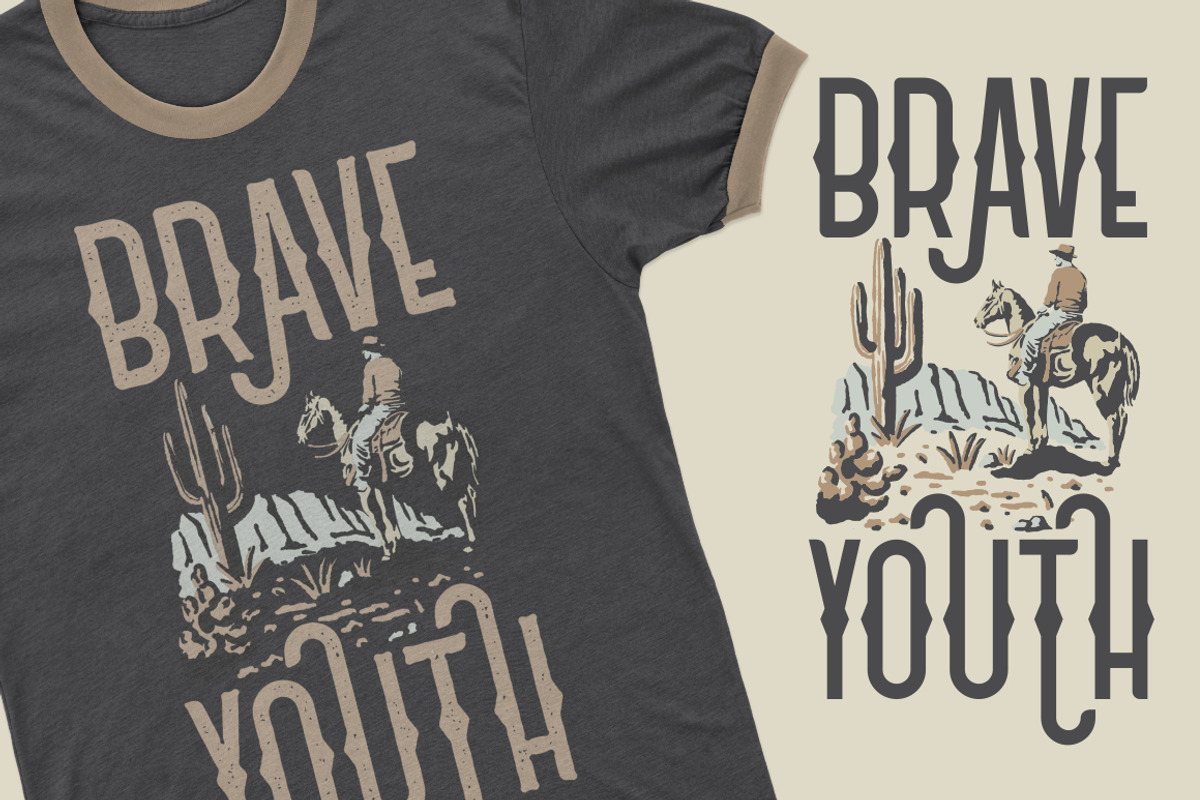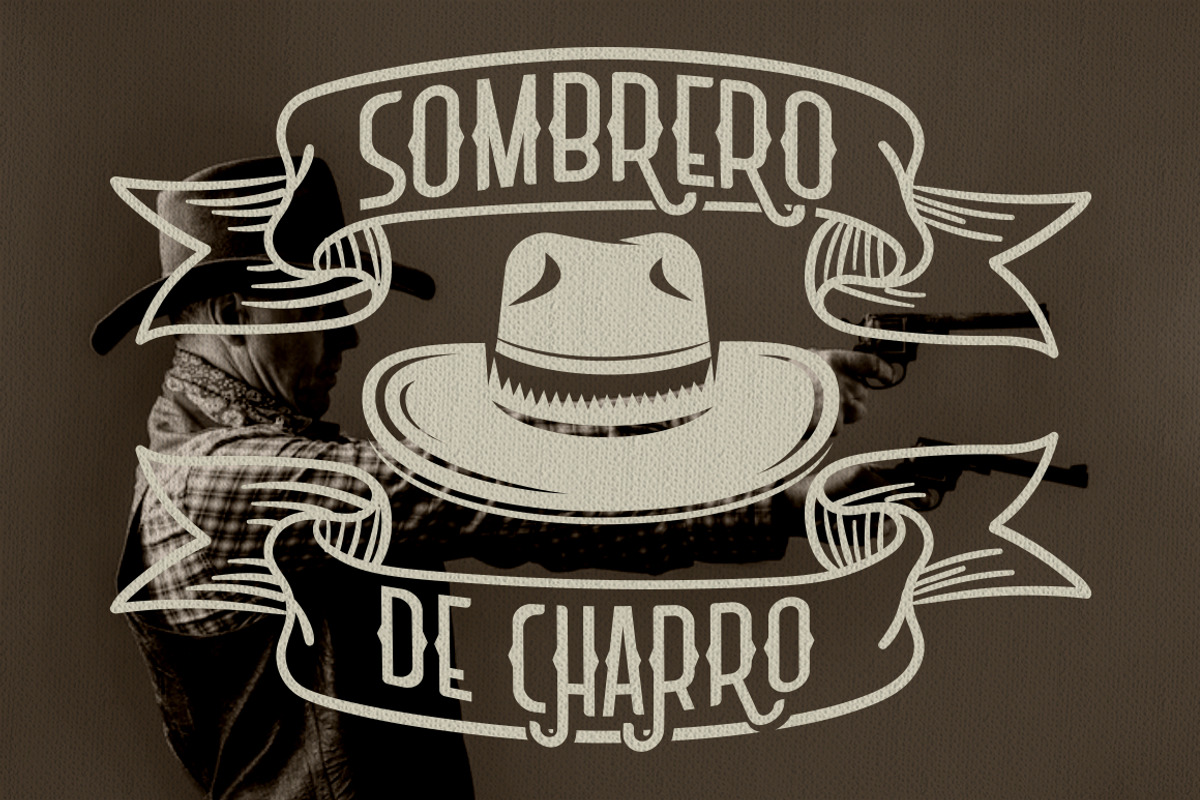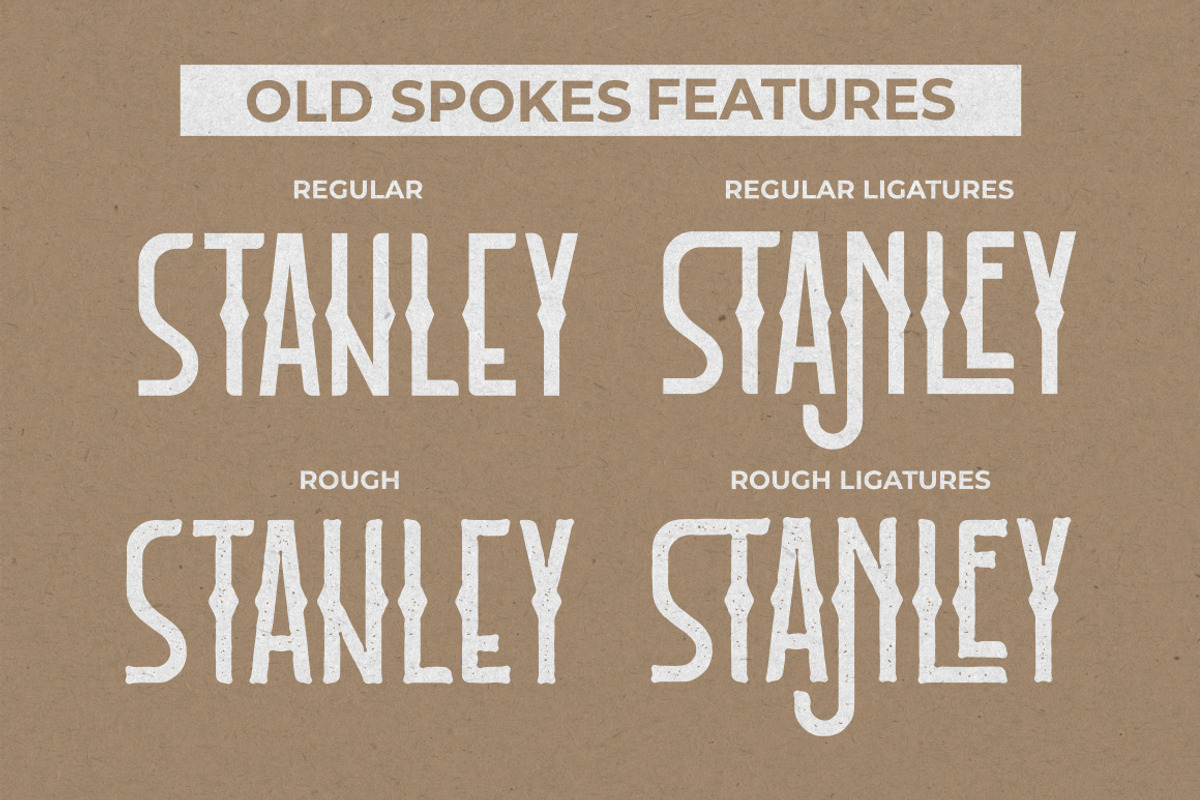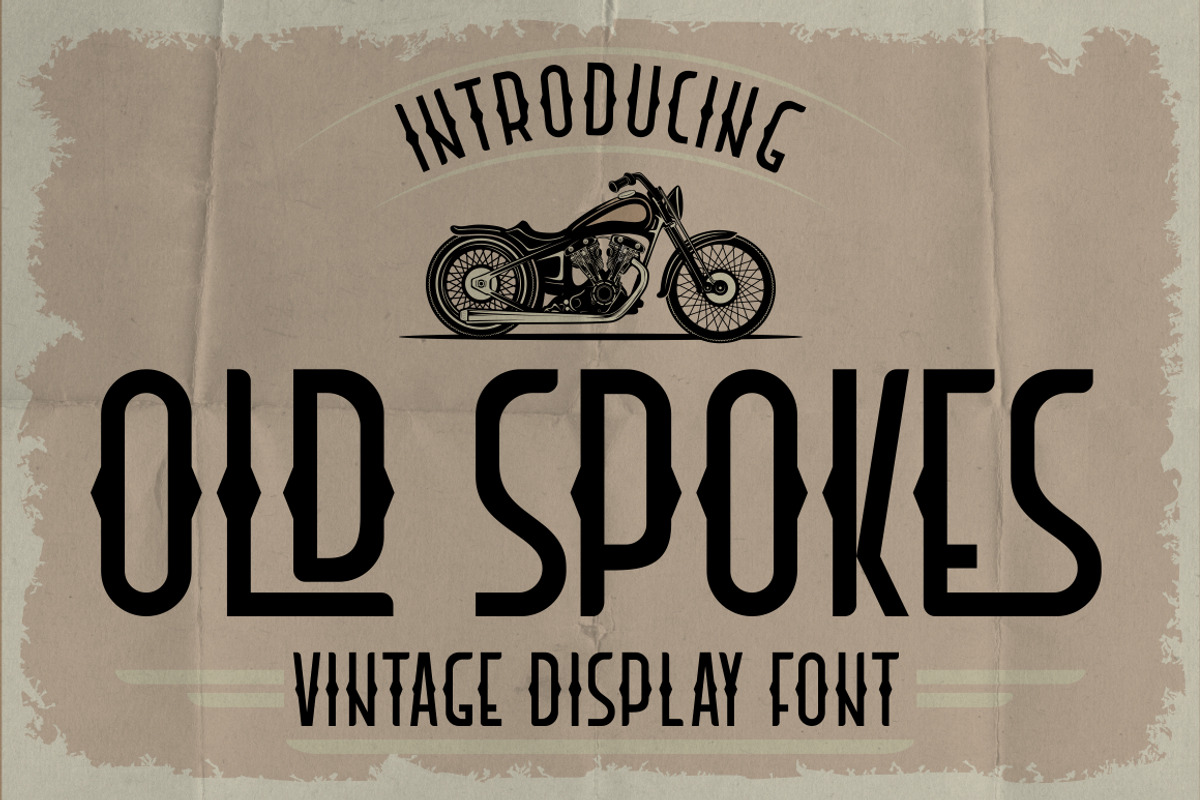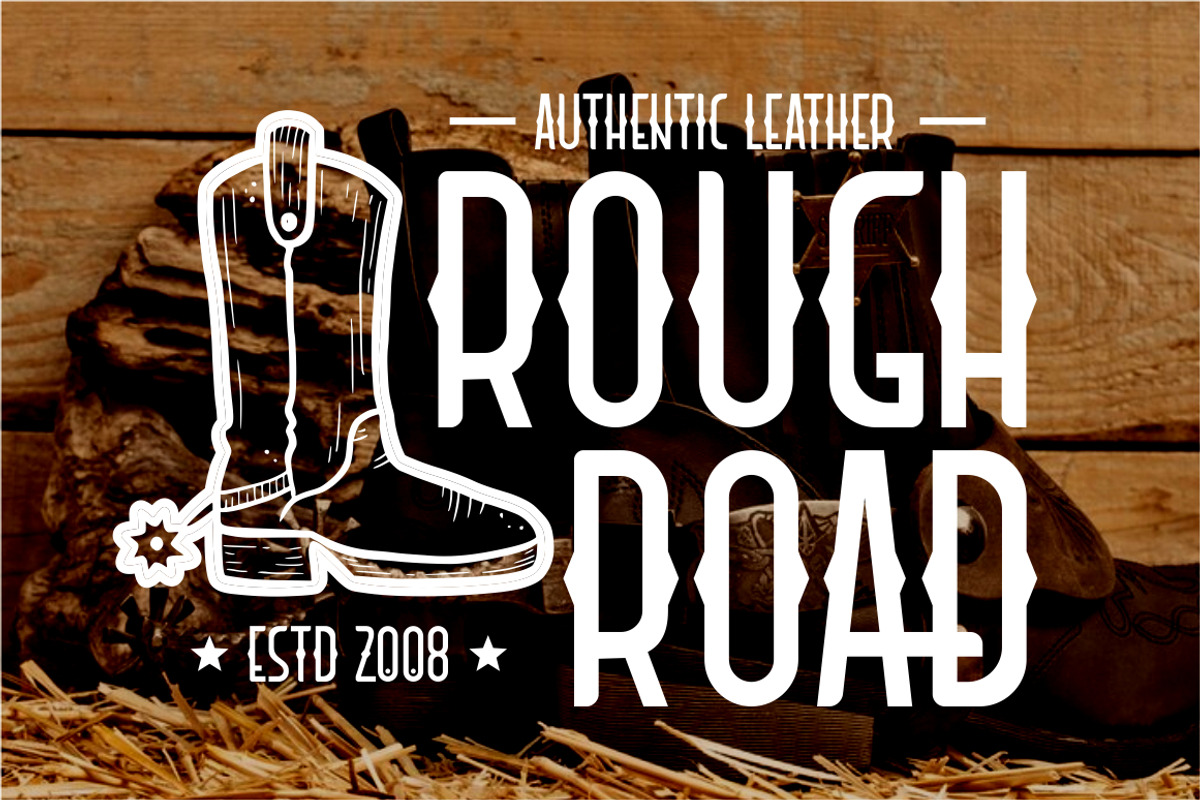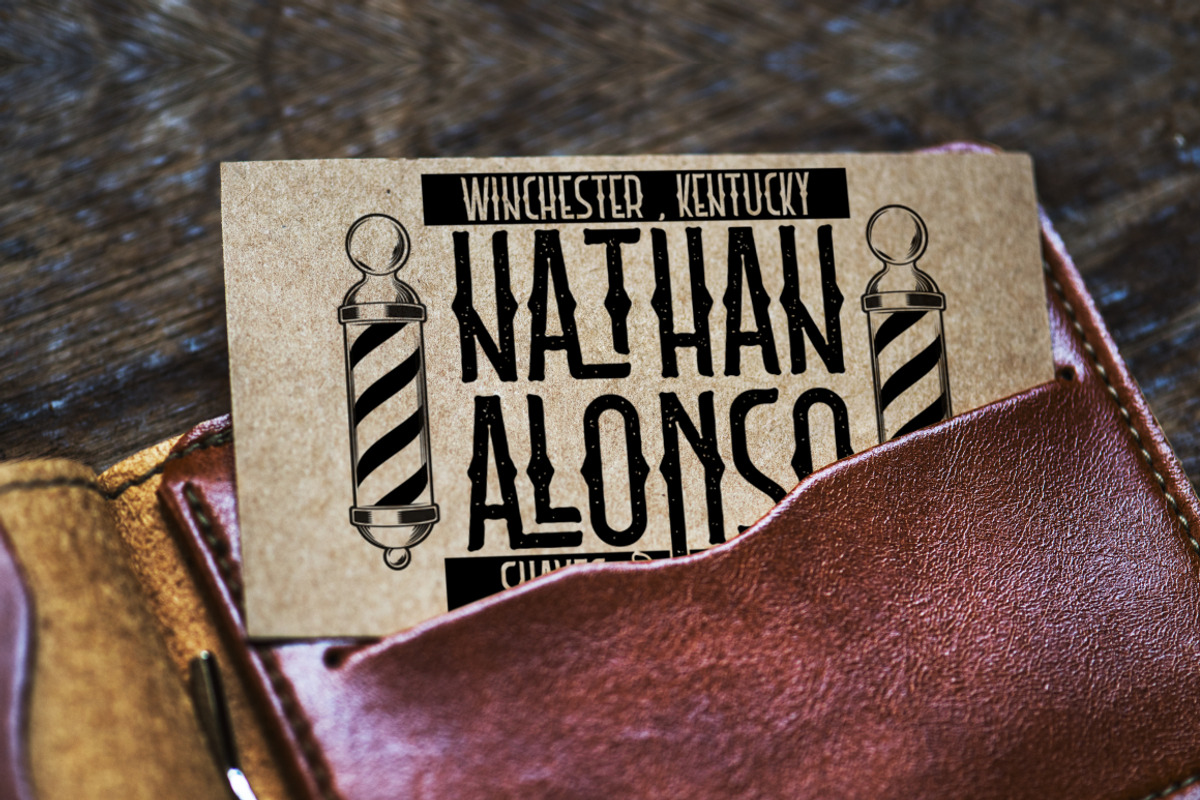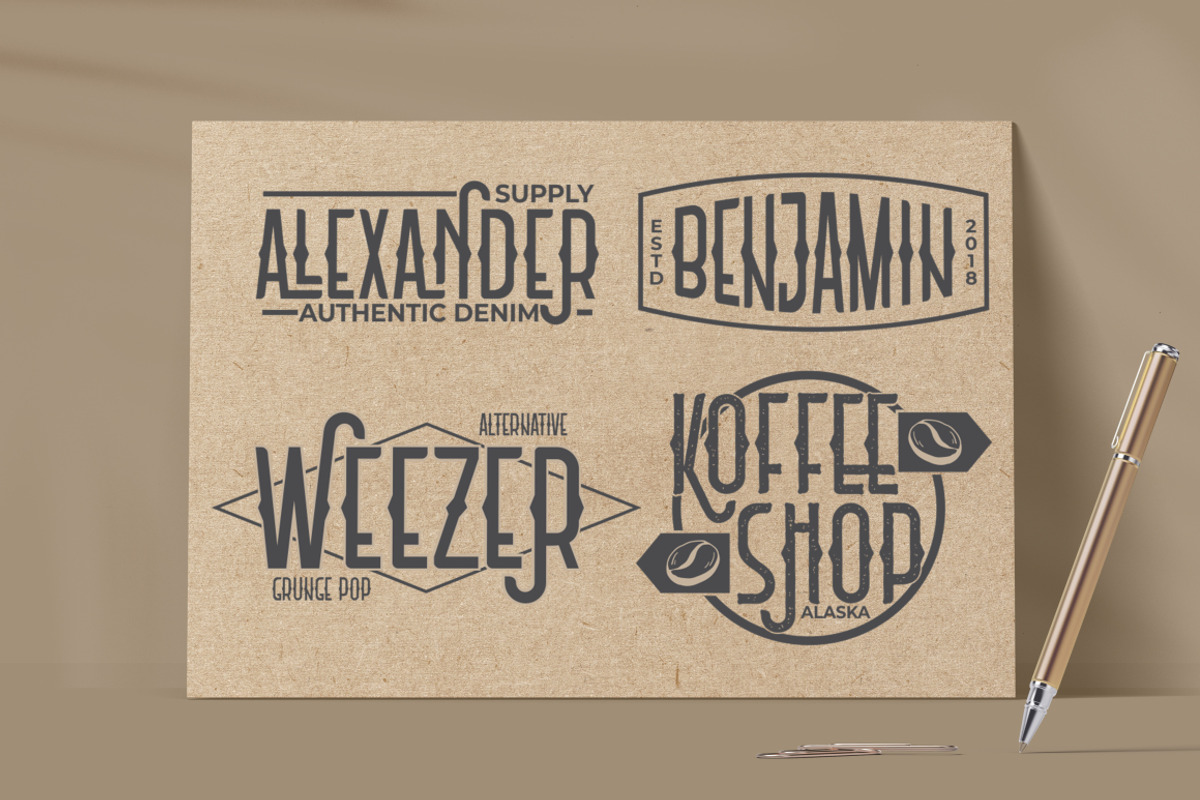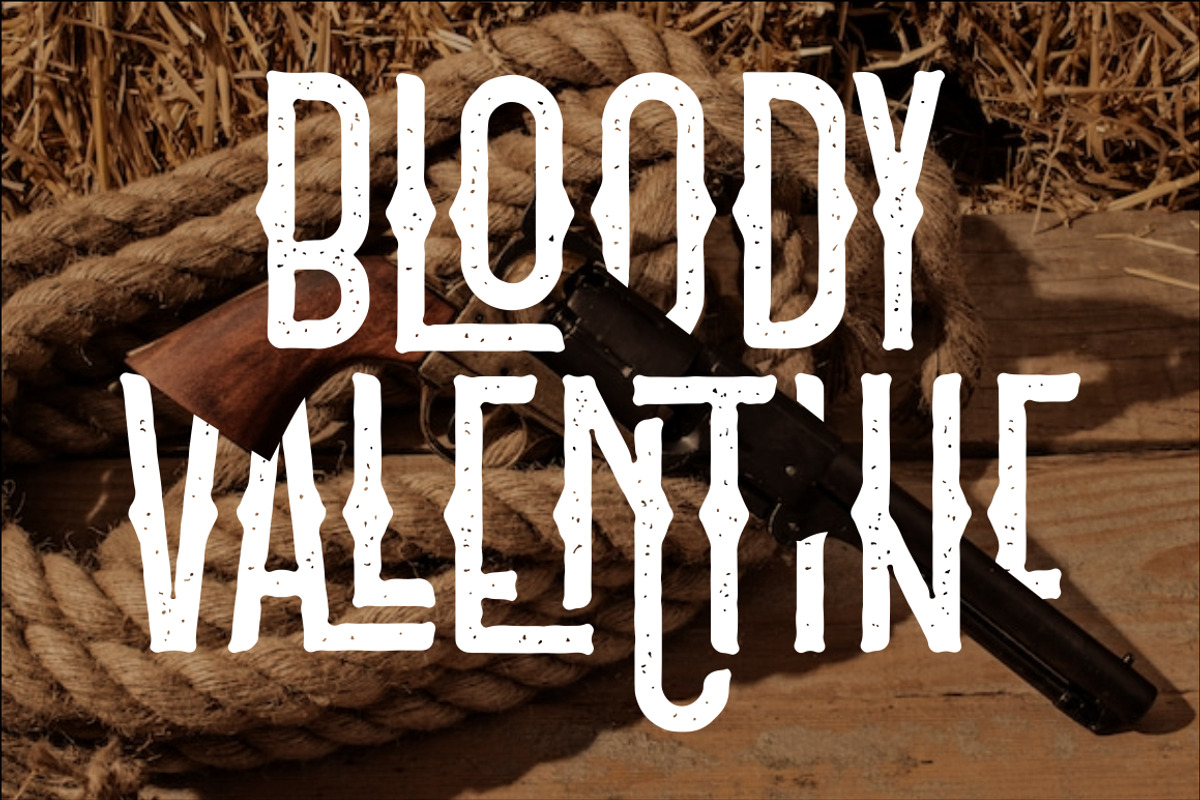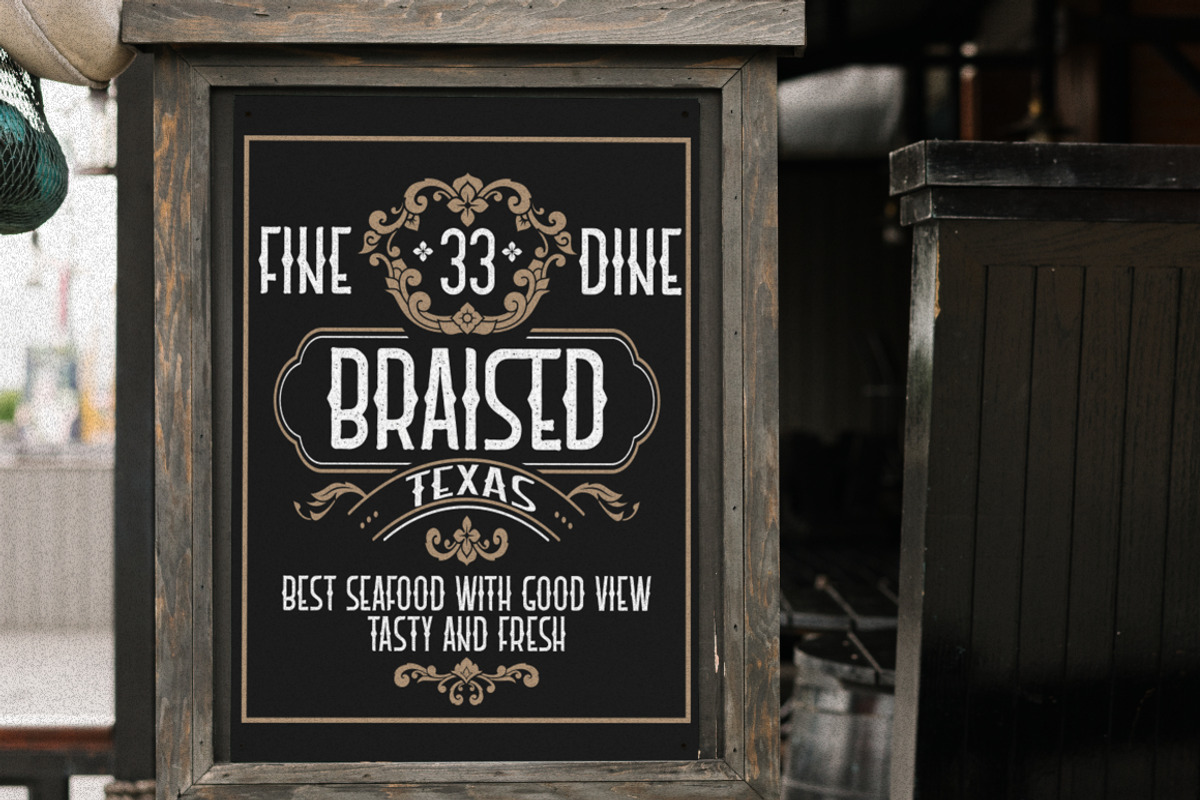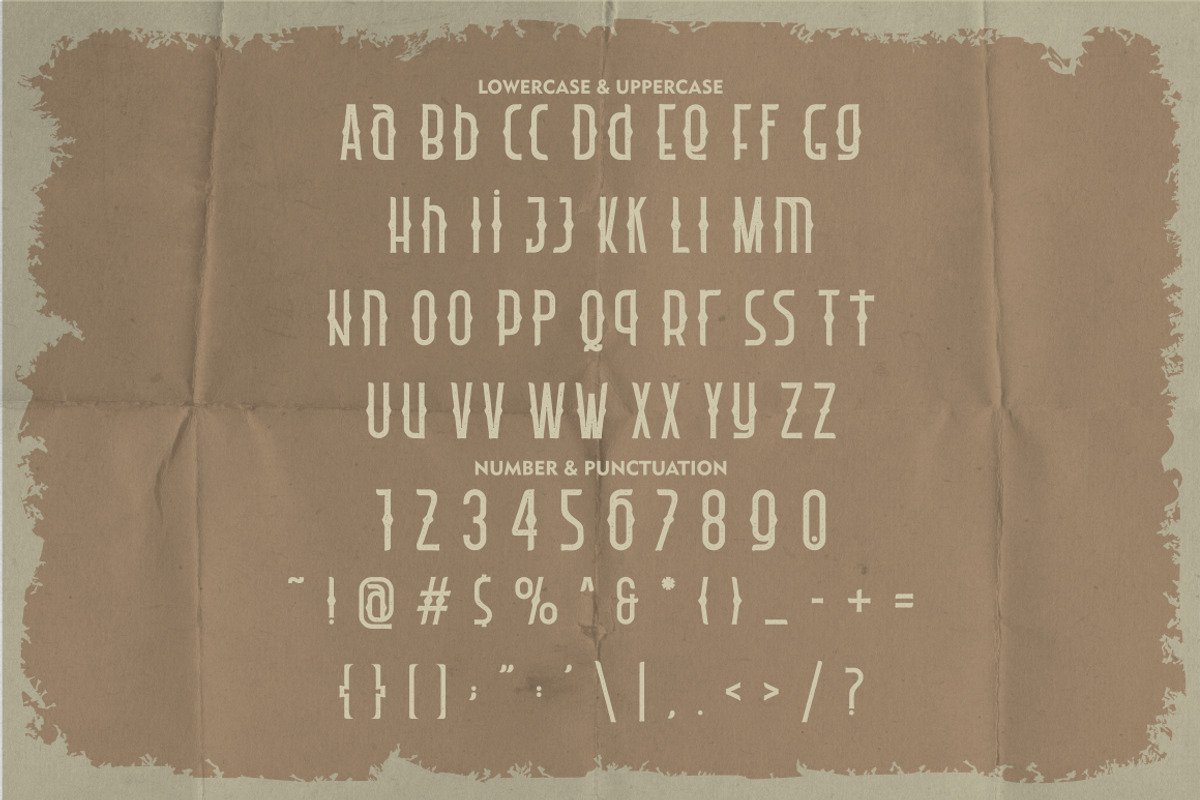
Old Spokes - Vintage Display Font
Old Spokes - Vintage Display Font. Old Spokes is a super unique vintage display typeface. Old Spokes font inspired by display of the posters with vintage themes. Old Spokes have classic, retro and trendy impression is very visible. But in Old Spokes font I combine several variations such as the ligature. It makes this font even more unique and different. Old Spokes is also great for any kind of display purpose from album, cover,poster, label, tshirt, apparel, signage, quote, logo, greeting card,logotype and many more. Old Spokes is also support multi language.
The alternative characters were divided into several Open Type features such as Swash, Stylistic Sets, Stylistic Alternates, Contextual Alternates, and Ligature. The Open Type features can be accessed by using Open Type savvy programs such as Adobe Illustrator, Adobe InDesign, Adobe Photoshop Corel Draw X version, And Microsoft Word. This font is also support multi language.
Comes with feature :
- Opentype (Alternates And Ligatures)
- Number, Punctuation And Symbols
- Multilanguage Support.